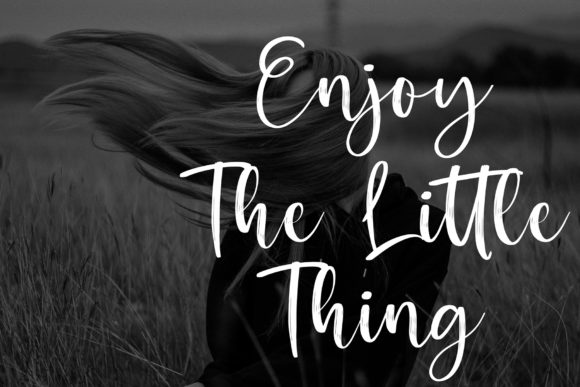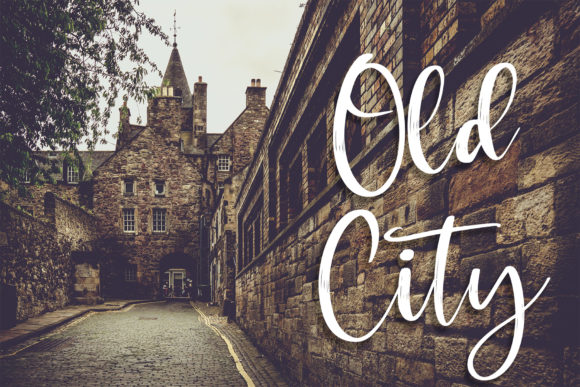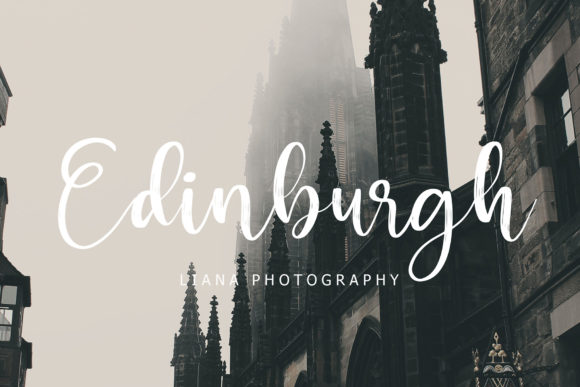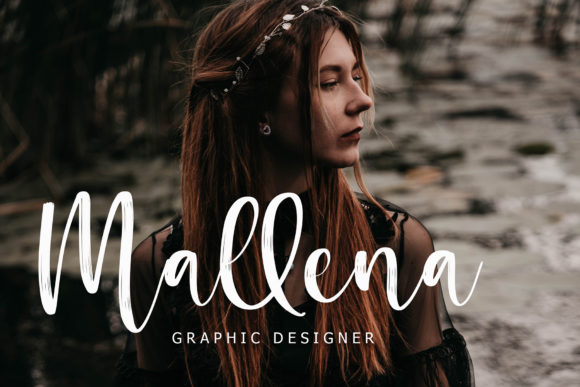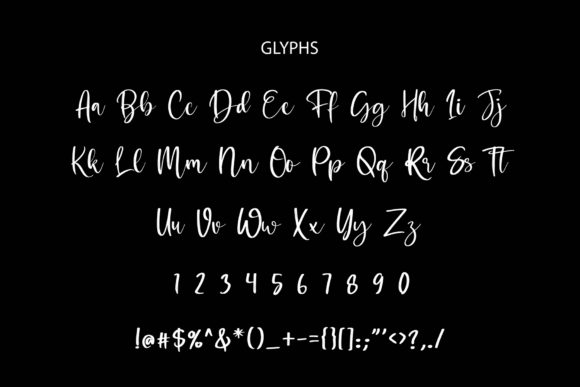
Bitheris Font: Elevate Your Designs with Elegance and Luxury
In the world of typography, a font can make or break a design. For designers and crafters looking to add a touch of sophistication and modernity to their projects, Bitheris Font is an excellent choice. This brush handwritten font is designed to make your text look elegant, luxurious, and modern, perfect for a wide range of applications.
The Characteristics of Bitheris Font
Bitheris Font boasts a unique, hand-brushed style that sets it apart from other fonts. Its elegant and fluid strokes give it a luxurious feel, making it ideal for designs that require a high-end look. The font’s modern aesthetic ensures that your text will stand out in a crowded design landscape.
One of the key benefits of Bitheris Font is its versatility. It can be used for a wide range of design projects, including:
- Branding projects: Create a lasting impression with a font that exudes elegance and sophistication.
- Logos: Make your logo stand out with a unique and memorable font.
- Wedding designs: Add a touch of luxury and romance to your wedding invitations, decorations, and more.
- Social media posts: Elevate your social media presence with eye-catching text that showcases your brand’s personality.
- Advertisements: Grab attention with a font that demands to be noticed.
- Product packaging: Make your products stand out on store shelves with beautiful, elegant text.
- T-shirt designs: Create unique and stylish apparel with a font that’s both modern and sophisticated.
Why Choose Bitheris Font?
With so many fonts available, why choose Bitheris Font? Here are just a few reasons:
- Unique style: Bitheris Font offers a distinctive, hand-brushed style that’s sure to set your designs apart.
- Elegant and luxurious: The font’s elegant strokes and luxurious feel make it perfect for high-end designs.
- Modern aesthetic: Bitheris Font has a modern aesthetic that’s perfect for designers looking to create contemporary designs.
- Versatile: The font can be used for a wide range of design projects, from branding and logos to wedding designs and social media posts.
Tips for Using Bitheris Font
To get the most out of Bitheris Font, here are a few tips:
- Use it sparingly: Bitheris Font is a statement font, so use it sparingly to avoid overwhelming your design.
- Pair it with other fonts: Experiment with pairing Bitheris Font with other fonts to create a unique and visually appealing design.
- Adjust the size and color: Play with the size and color of Bitheris Font to create a design that’s both elegant and eye-catching.
Bitheris Font is a versatile and elegant font that’s perfect for designers and crafters looking to add a touch of luxury and modernity to their designs. With its unique, hand-brushed style and wide range of applications, Bitheris Font is an excellent choice for anyone looking to elevate their designs. Whether you’re working on a branding project, logo, wedding design, or social media post, Bitheris Font is sure to make your text look elegant, luxurious, and modern.